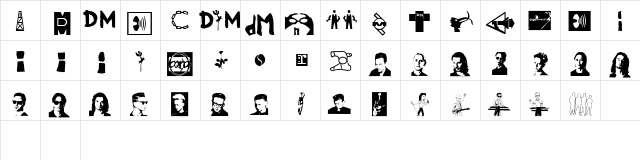
Modebats Regular
Design Context for Modebats Typeface
Modebats is a composed and adaptable typeface that performs quietly and consistently across a wide range of design contexts.